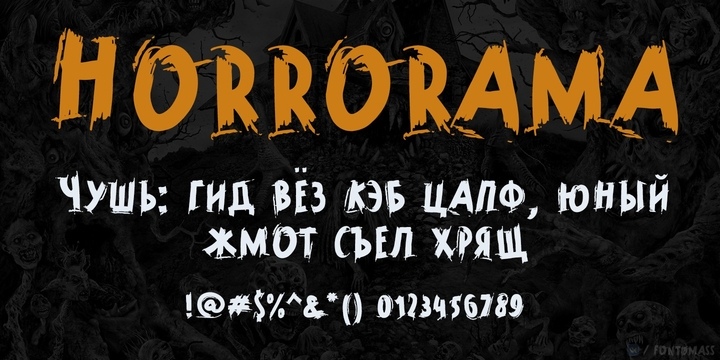
Horrorama Font
Horrorama Font excels in horror movie posters, haunted house attractions, Halloween party invitations, gothic album covers, thriller book designs, spooky video game titles, dark fantasy artwork, horror streaming platforms, scary escape room branding, and atmospheric horror marketing materials requiring spine-chilling visual impact.
What makes Horrorama Font exciting is its masterfully crafted ability to evoke genuine fear and suspense through typography alone, creating an immediate psychological response that draws viewers into dark, mysterious narratives. This haunting typeface features distressed, menacing letterforms with jagged edges, dripping effects, and unsettling proportions that perfectly capture the essence of classic horror aesthetics. The font's sinister character and atmospheric presence make it essential for projects requiring authentic terror, supernatural mystery, and the bone-chilling appeal of horror entertainment.
Horrorama Font belongs to the horror display font family, specifically designed to recreate the iconic typography found in classic B-movie posters and contemporary horror media. This font family typically includes regular, bold, distressed, and blood-drip variants with special horror-themed glyphs and decorative elements, providing designers with comprehensive tools for creating genuinely frightening visual experiences.
Perfect for horror filmmakers, haunted attraction designers, gothic artists, and entertainment professionals specializing in fear-based content, this typeface dominates in titles, headers, and dramatic display applications. The font's terrifying presence enhances horror movie marketing, Halloween decorations, spooky gaming interfaces, and dark entertainment branding requiring genuine fright factor.
The expertly distressed letterforms maintain shocking readability while maximizing psychological impact across all viewing conditions. From intimate horror comic panels to massive outdoor Halloween displays, Horrorama Font delivers consistent terror while preserving its distinctive horrifying character and atmospheric dread.
Modern designers value how this font instantly communicates genre authenticity and emotional intensity simultaneously. Its versatility across digital horror content and traditional print materials ensures seamless integration into contemporary horror marketing while honoring classic fear-inducing typography traditions.